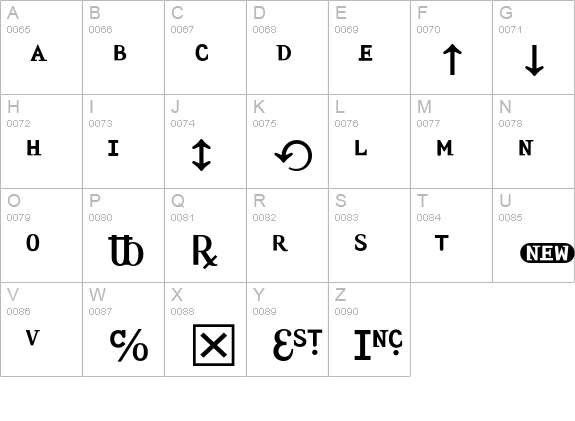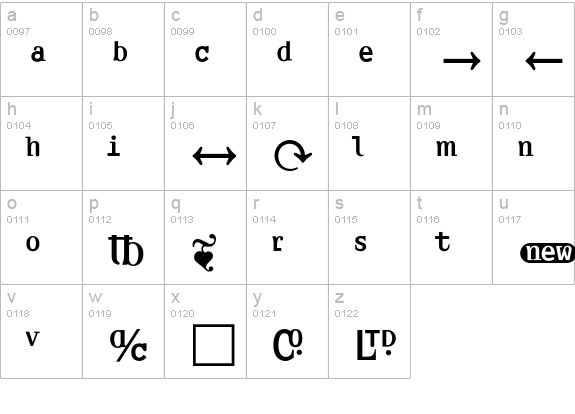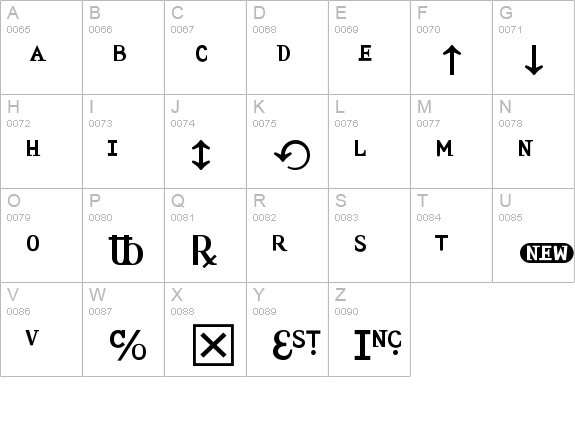
AmplifierLightExtensions Font Details
AmplifierLightExtensions font is a modern and sleek typeface that exudes sophistication and elegance. With its clean lines and sharp edges, this font is perfect for creating a polished and professional look in your designs. The AmplifierLightExtensions font offers a unique blend of contemporary style and classic elegance, making it versatile for a wide range of design projects. This font is available for free download at FontsMarket.com, allowing you to access its premium quality without any cost. Whether you are designing a logo, branding materials, or any other creative project, the AmplifierLightExtensions font will add a touch of refinement and style to your work. Download this font today and elevate your designs with its timeless appeal.